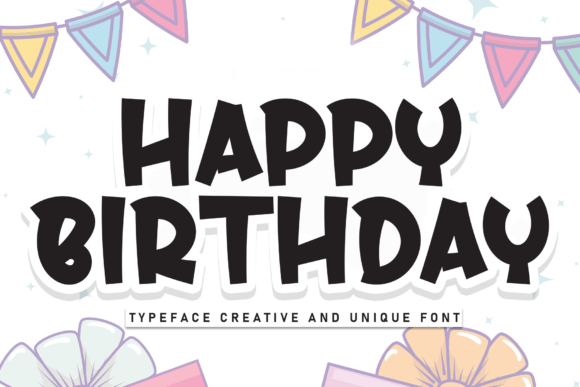
The Perfect Font for Your Special Moment
Have you ever found yourself staring at a blank page, trying to come up with the perfect way to express your feelings? Whether it’s a birthday card, a wedding invitation, or a simple “thank you” note, finding the right words can be a challenge. But what if I told you that the key to making your message truly special lies not in the words themselves, but in the way they’re presented?
Enter the Happy Birthday Font, a sweet and friendly typeface that’s sure to bring a smile to anyone’s face. With its natural and unique style, this font is the perfect addition to any design project. Whether you’re a seasoned designer or just starting out, the Happy Birthday Font is a valuable tool that will help you create truly special and memorable moments.
Key Features of “Happy Birthday Font”
- Unique Characteristics: Custom-designed birthday-themed font with celebratory feel, perfect for birthday invitations, greeting cards, and party decorations
- Style Options: Comes in 2 styles: Regular and Bold, allowing for versatility in design and layout
Designer Review: Happy Birthday Font
Happy Birthday Font, at first glance, looks like a great addition to any designer’s toolkit. ✨ The font’s playful and whimsical design perfectly captures the spirit of celebration, making it a great fit for birthday invitations, party decorations, and other festive designs.
- Provides a unique and eye-catching design
- ⚠️ May not be suitable for formal or professional designs
- ⚠️ Some users may find the font too flashy or over-the-top
Overall, I think Happy Birthday Font is a great choice for designers who want to add a pop of fun and excitement to their designs. While it may not be suitable for every project, it’s a valuable addition to any designer’s toolkit.
Use the Happy Birthday font to create eye-catching and memorable designs for birthday parties, celebrations, and special occasions.
Experiment with different font sizes, colors, and styles to create a unique and festive look.
The Happy Birthday font is ideal for
Alternatives to Happy Birthday Font for Designers
Great Vibes is a modern script font that’s perfect for creating a playful and festive atmosphere. It’s ideal for designing birthday invitations, greeting cards, and other celebratory materials. Compared to Happy Birthday Font, Great Vibes is more elegant and sophisticated, making it suitable for a wider range of designs.
Dancing Script is a beautiful, handwritten font that’s great for adding a touch of whimsy to your designs. It’s perfect for creating custom birthday party invitations, banners, and other decorative elements. While Happy Birthday Font is more straightforward and easy to read, Dancing Script is more ornate and attention-grabbing.
Carolyna Pro is a modern, elegant font that’s perfect for creating sophisticated birthday designs. It’s ideal for designing formal invitations, party programs, and other high-end materials. Compared to Happy Birthday Font, Carolyna Pro is more refined and polished, making it suitable for upscale events and celebrations.
Pacifico is a beautiful, handwritten font that’s perfect for creating a relaxed and casual atmosphere. It’s ideal for designing beach-themed birthday parties, outdoor events, and other laid-back celebrations. While Happy Birthday Font is more energetic and playful, Pacifico is more laid-back and effortless.